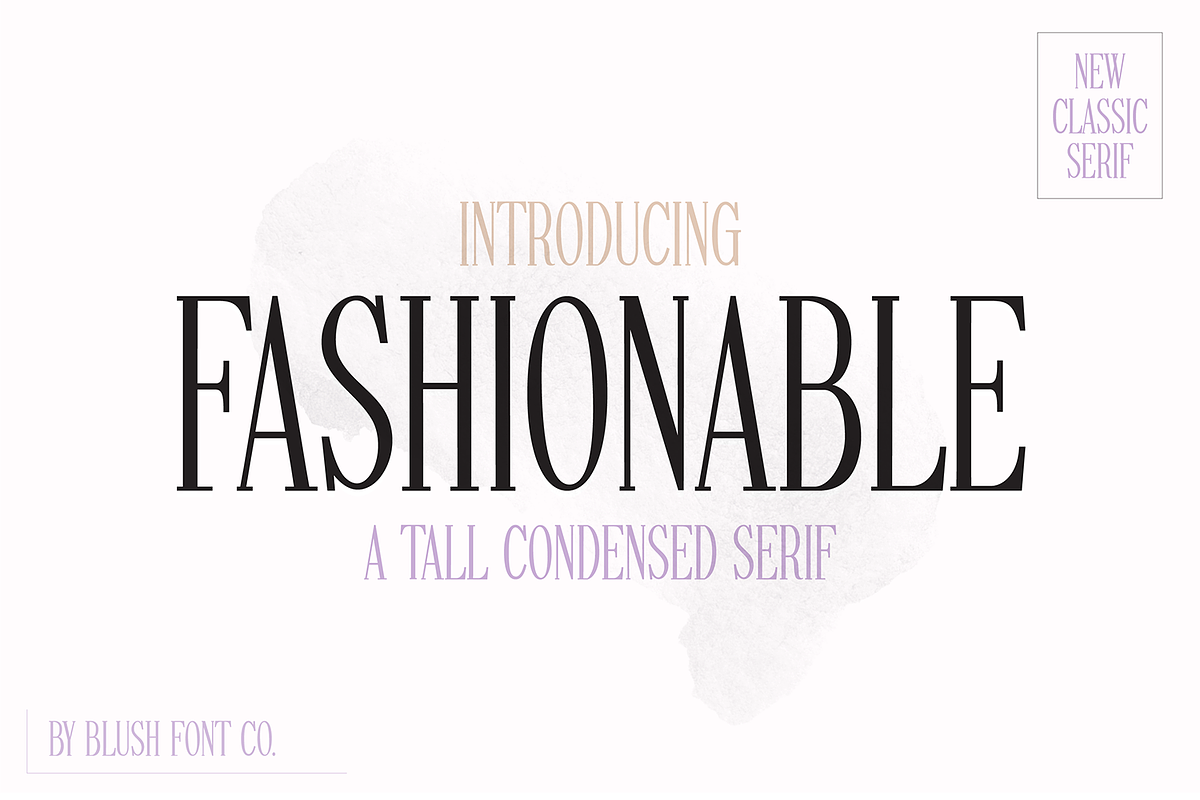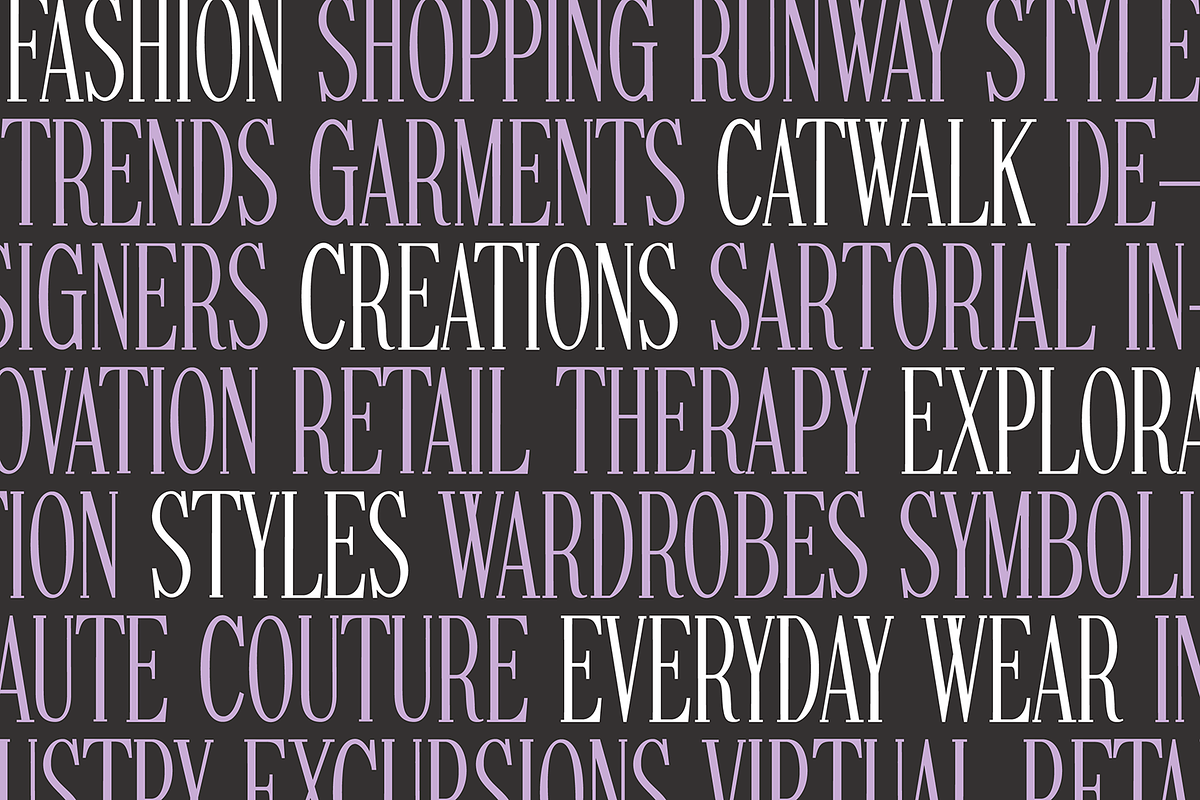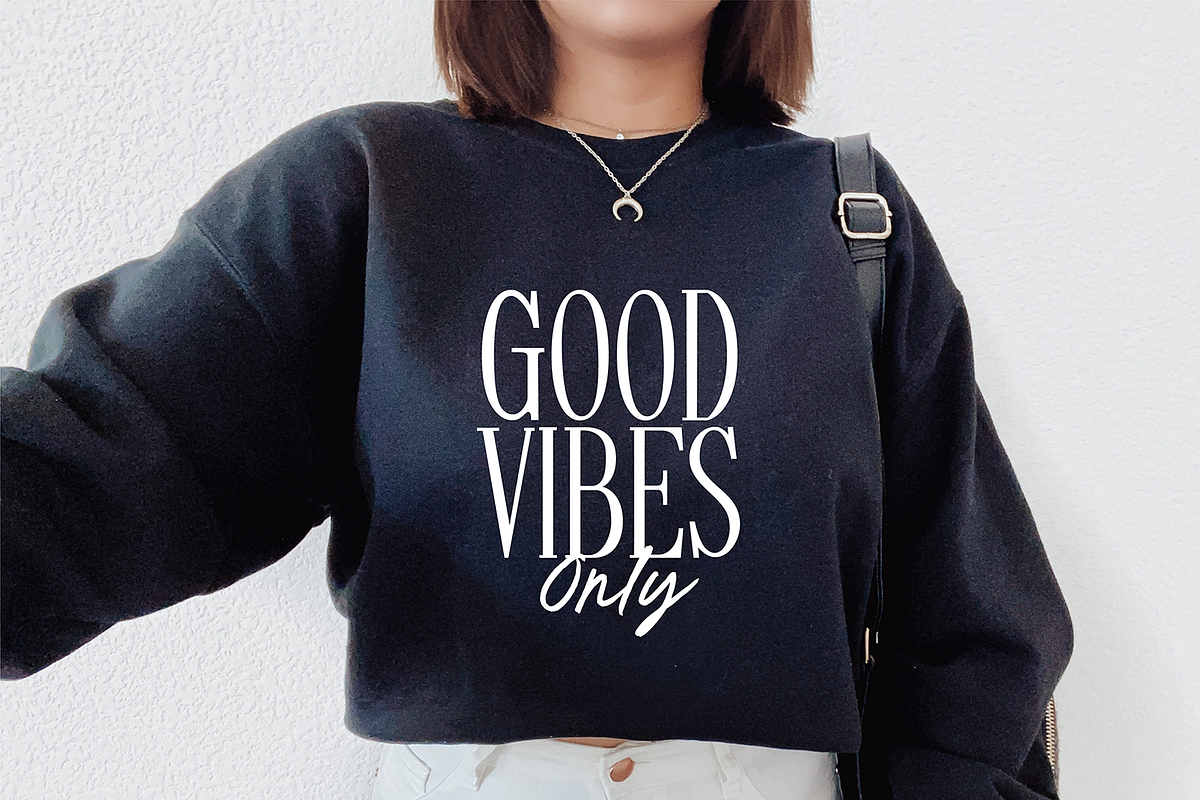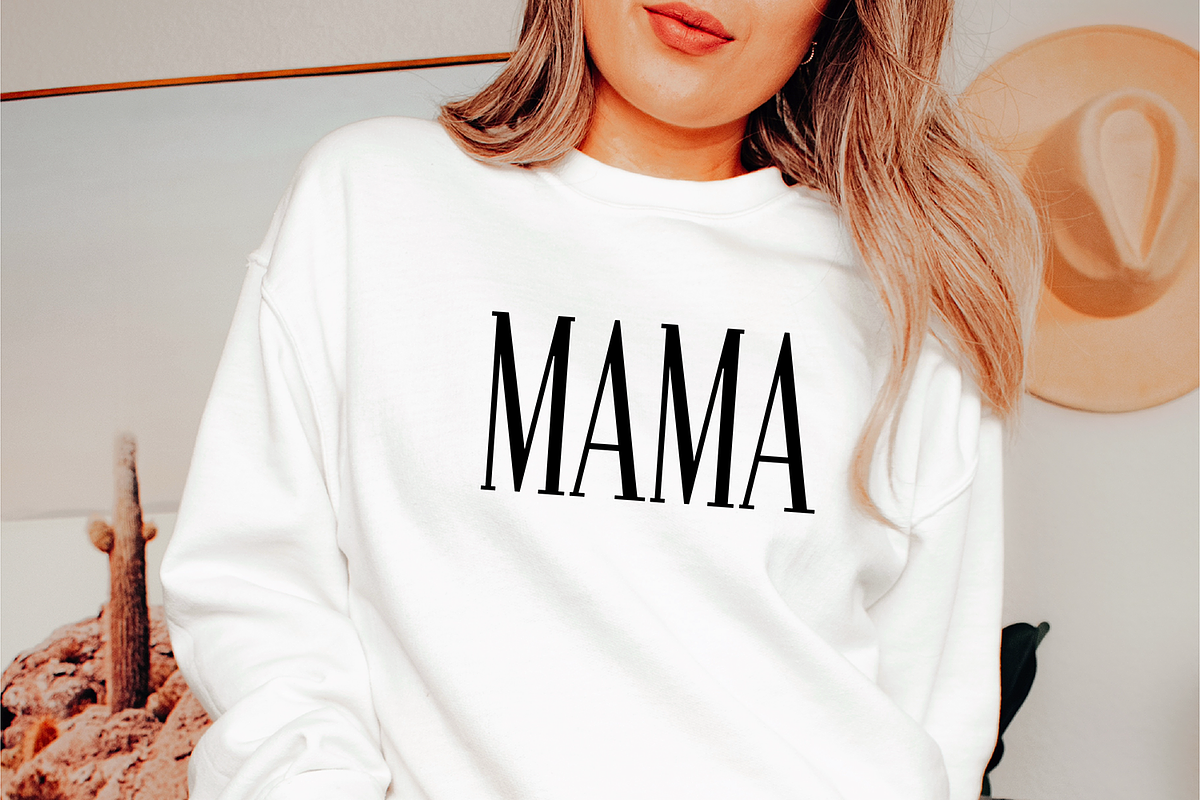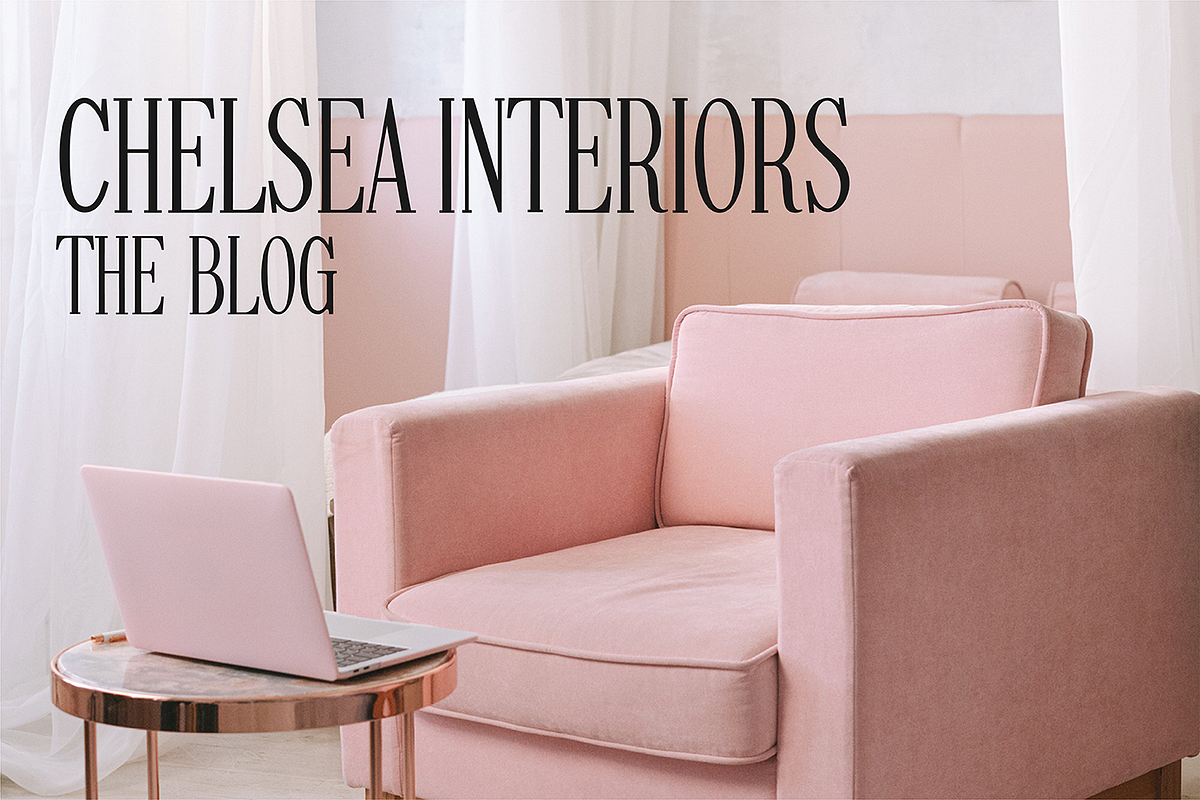
FASHIONABLE Tall Condensed Serif
"Fashionable" a modern tall condensed serif display font.
Multilingual support.
This font is a bold display font that is perfect for wedding or crafty projects. Use it for branding, crafts for decor, invitations, and more! All caps glyphs, numbers, punctuation marks, and intl characters.